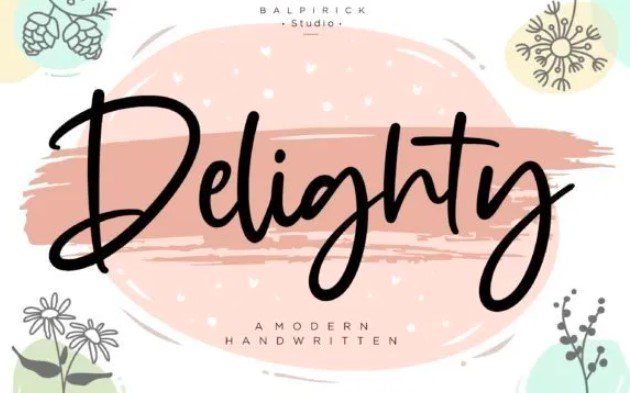
We are providing the coolest typeface ever which is Delighty Font which is the most beautiful and unique handwritten typeface which is available to download for free and comes with rich features.
It can usable by any graphic designer to generate your designs unique and amazing. It is great and one of the best free typeface you can use it for making all kinds of precious designs.
You can easily get this beautiful delighty font for free in truetype format that can easily usable with the combination of comic sans font as a pairing. It contains a large number of unique glyphs and ligatures.